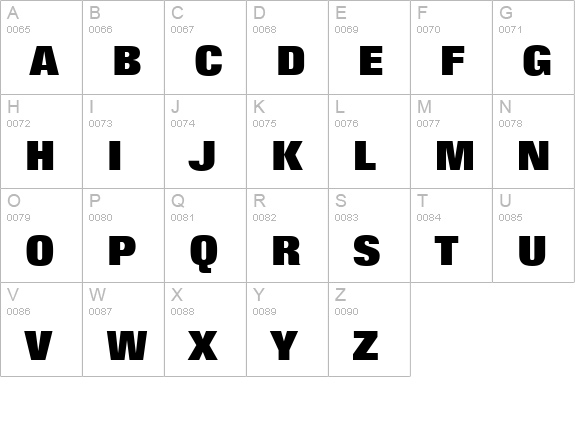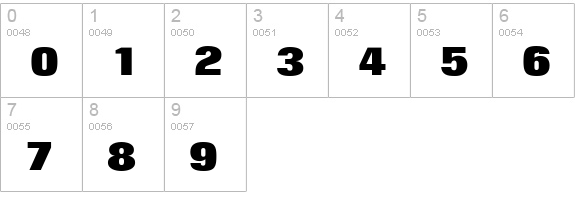
Layout Black SSi Black Font Details
Layout Black SSi Black is a maximum-weight, dramatic variant in the Layout typeface family \xE2\x80\x94 well suited to maximum-impact headlines, posters, and packaging.
Layout Black SSi Black font is a stunning typeface that exudes elegance and sophistication. Its bold and sleek design makes it perfect for capturing attention and creating a powerful visual impact. The thick, solid black strokes of the letters give it a strong and commanding presence. This font is not only visually appealing but also highly versatile. It can be used for a variety of design projects, including logos, headlines, posters, and branding materials. With its clean and modern look, it adds a touch of professionalism and class to any design. What makes Layout Black SSi Black font even more appealing is that it is available for free download at FontsMarket.com. This means that designers, creatives, and anyone in need of a stylish and impactful font can easily access and use it without any cost. Whether you are a professional designer or someone looking to add a touch of sophistication to your personal projects, Layout Black SSi Black font is the perfect choice. Its sleek and bold design, combined with its versatility and availability as a free download, make it a must-have font for anyone seeking to make a bold statement with their designs.